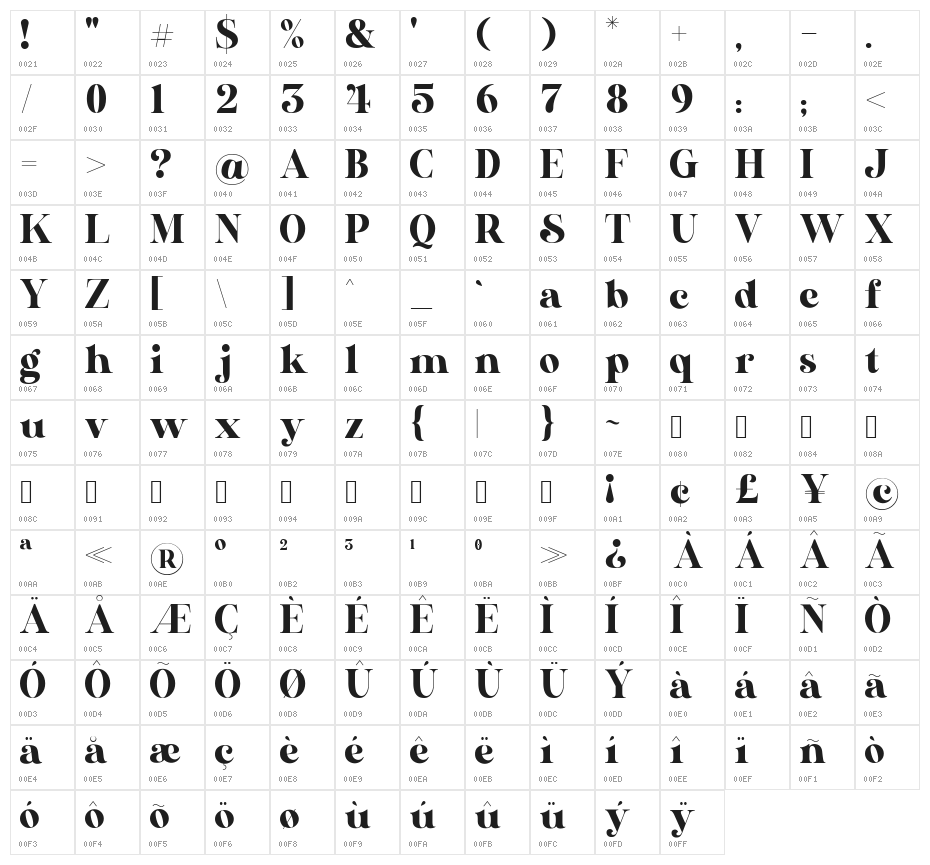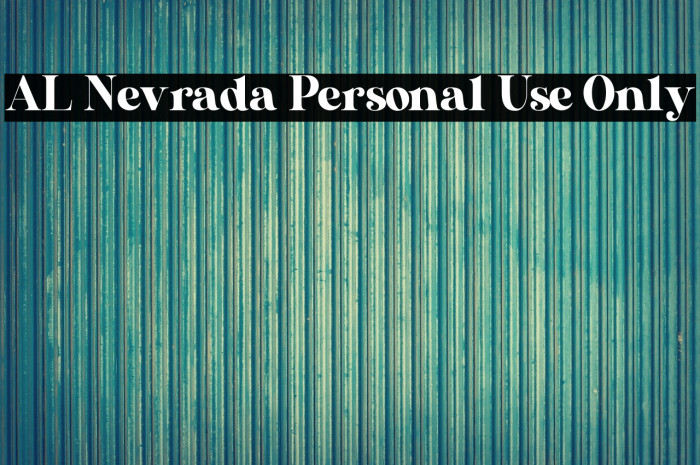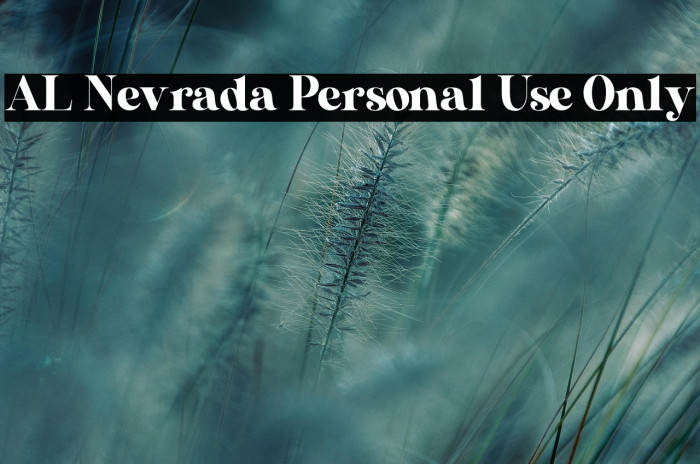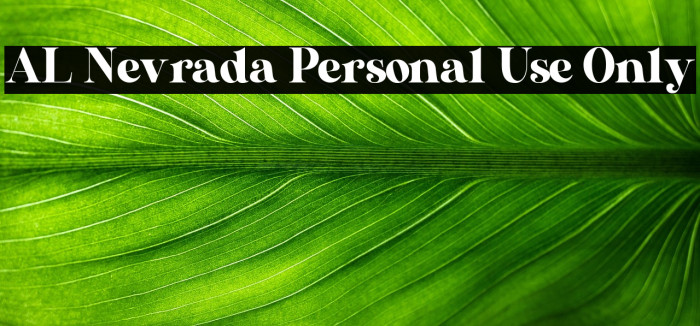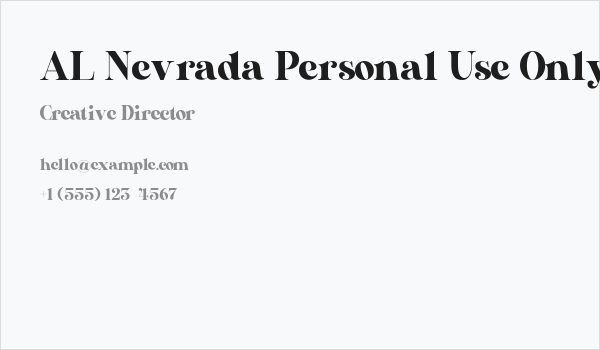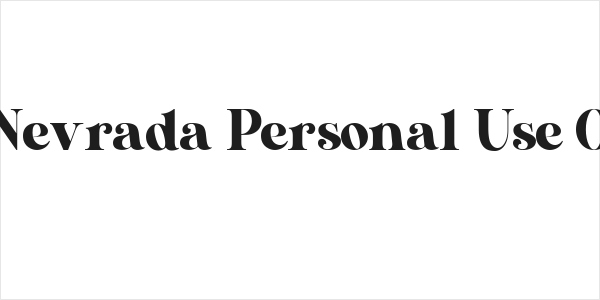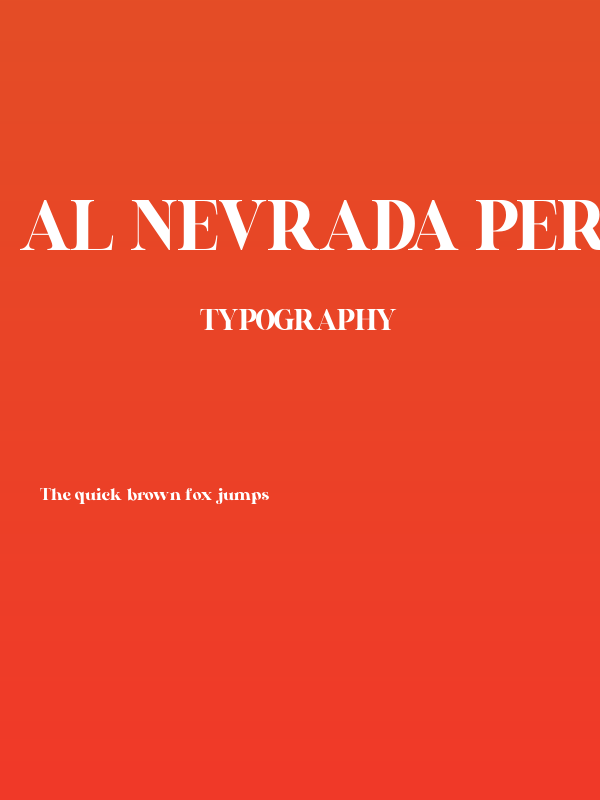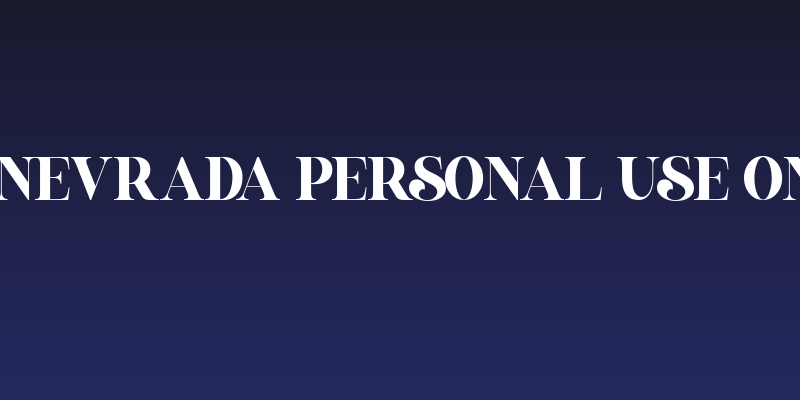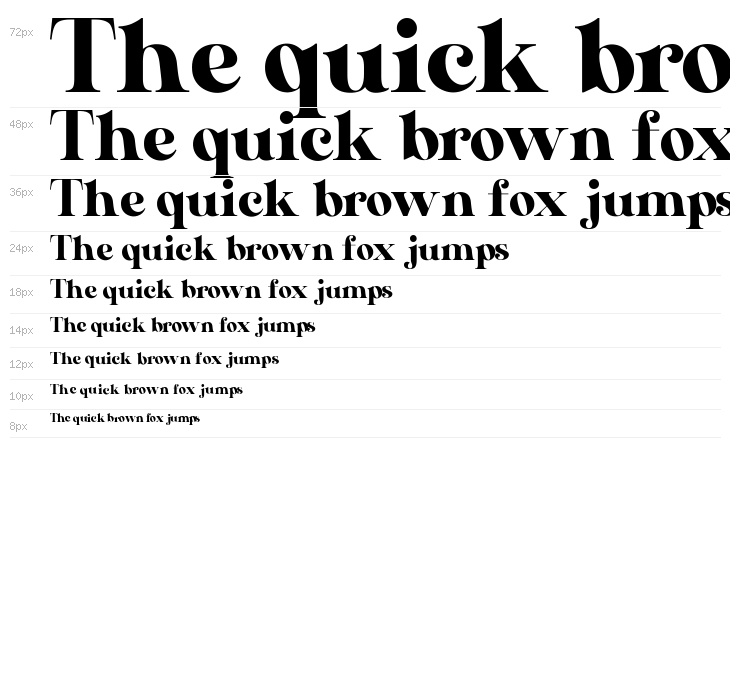
AL Nevrada Personal Use Only Font
AL Nevrada Personal Use Only Description
This font exhibits a bold and dramatic serif style, characterized by thick, prominent strokes and high contrast between thick and thin lines. The serifs are pronounced, adding a classic and authoritative feel to the typeface. The uppercase letters are tall and commanding, while the lowercase letters maintain a consistent style with slightly rounded edges, providing a touch of elegance. The numerals are equally bold, ensuring visibility and impact. Special characters are crafted with the same attention to detail, making them suitable for a variety of uses. Overall, this font combines traditional serif elements with a modern twist, making it versatile for both formal and creative applications.
| Use Case | Headlines, Logos, Editorial Design |
| Proposed Projects | Ideal for branding, editorial design, book covers, and high-impact headlines. |